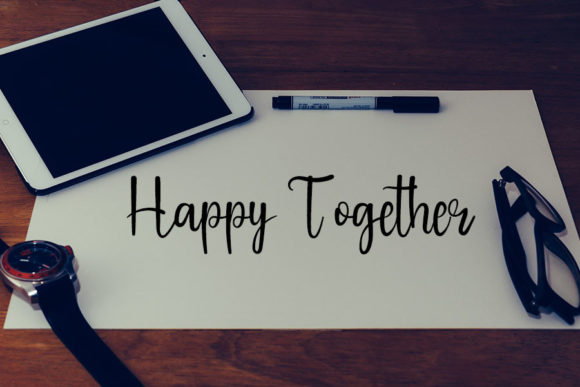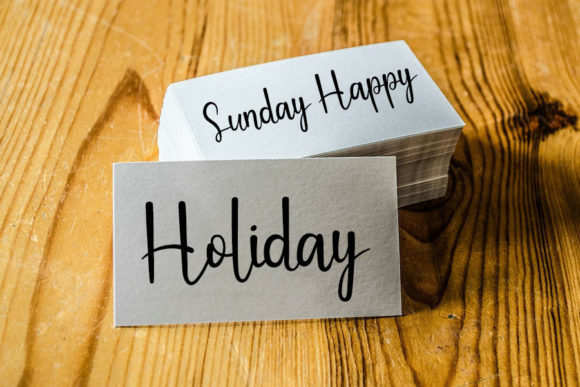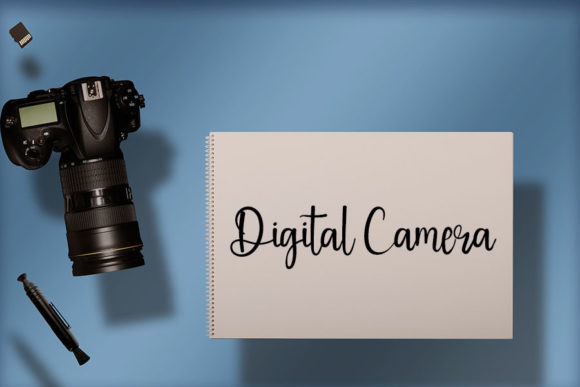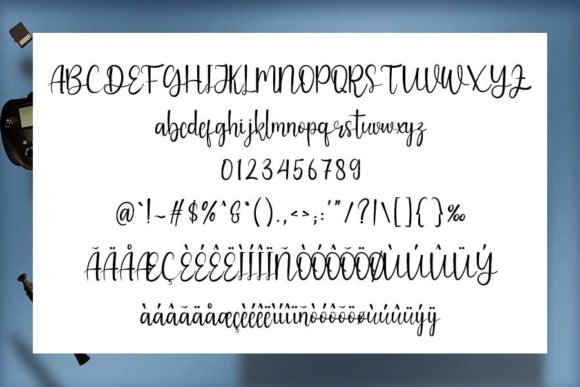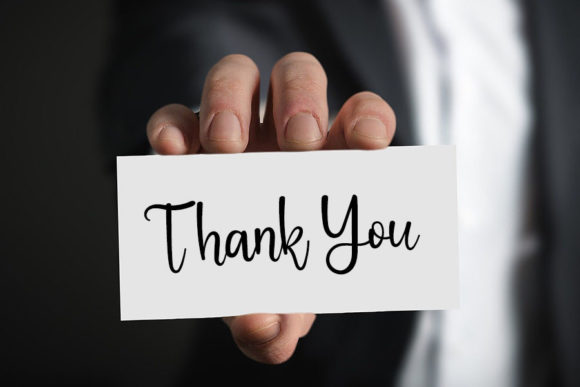
Better Font: Elevate Your Designs with Elegance and Sophistication
In the world of typography, fonts play a crucial role in conveying the tone and aesthetic of a design. Among the numerous font styles available, script fonts have gained immense popularity for their elegance and sophistication. One such font that has captured the hearts of designers and crafters alike is the Better Font. This stunning script font is a perfect blend of flowing and graceful, making it an ideal choice for creating breathtaking designs.
What Makes Better Font So Special?
Better Font is a beautifully crafted script font that exudes elegance and refinement. Its ravishing style is sure to captivate your audience, making it perfect for a wide range of design projects. Whether you’re creating wedding invitations, stationery art, social media posts, or any other visual content, Better Font is sure to elevate your designs to the next level.
Key Features of Better Font
- Flowing and Graceful: Better Font boasts a smooth, flowing design that adds a touch of sophistication to any project.
- Elegant and Refined: The font’s elegant and refined style makes it perfect for designs that require a high level of sophistication.
- Versatile: Better Font can be used for a wide range of design projects, from wedding invitations to social media posts.
- Easy to Read: Despite its elegant style, Better Font is easy to read, making it perfect for body text and captions.
Creative Use Cases for Better Font
Better Font is an incredibly versatile font that can be used for various design projects. Here are some creative use cases to get you started:
- Wedding Invitations: Create stunning wedding invitations that set the tone for the big day.
- Stationery Art: Design beautiful stationery art, including greeting cards, thank-you cards, and more.
- Social Media Posts: Elevate your social media posts with Better Font’s elegant style.
- Branding and Packaging: Use Better Font to create a cohesive brand identity that exudes elegance and sophistication.
- Signage and Displays: Create eye-catching signage and displays that showcase your message in style.
Tips for Using Better Font Effectively
To get the most out of Better Font, here are some tips to keep in mind:
- Pair with Complementary Fonts: Pair Better Font with complementary fonts to create a harmonious and visually appealing design.
- Experiment with Colors: Try out different color combinations to find the perfect match for your design.
- Pay Attention to Spacing: Ensure adequate spacing between letters and lines to maintain readability and elegance.
- Use for Headings and Titles: Use Better Font for headings and titles to add a touch of sophistication to your design.
Better Font is a stunning script font that can elevate your designs to new heights. Its flowing and graceful style makes it perfect for creating elegant and sophisticated designs. With its versatility, ease of use, and creative use cases, Better Font is an excellent addition to any designer’s toolkit. So why wait? Fall for Better Font’s ravishing style and create gorgeous designs that leave a lasting impression.